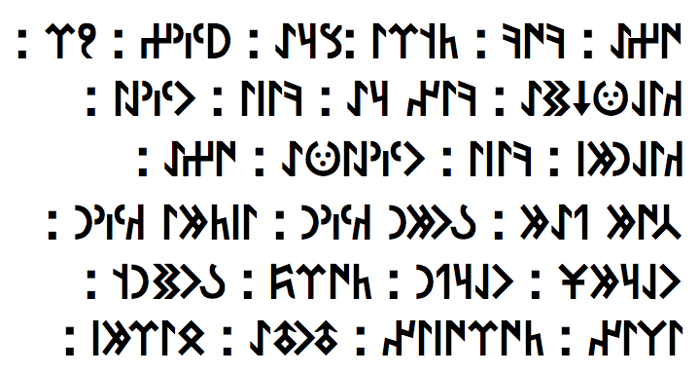
Orkun Font
A font for Old Turkic script. Maintained OTF version of the original Orkun Font by Erk Yurtsever (1999) with updated glyphs for the Unicode Old Turkic code block, design and kerning improvements.